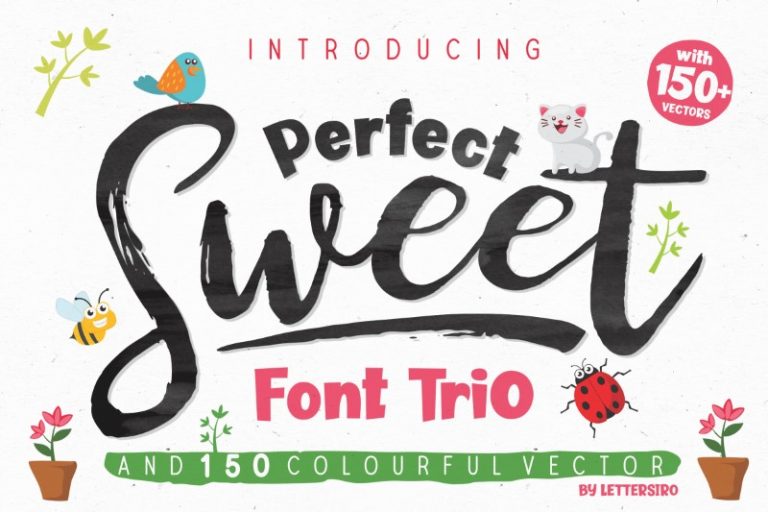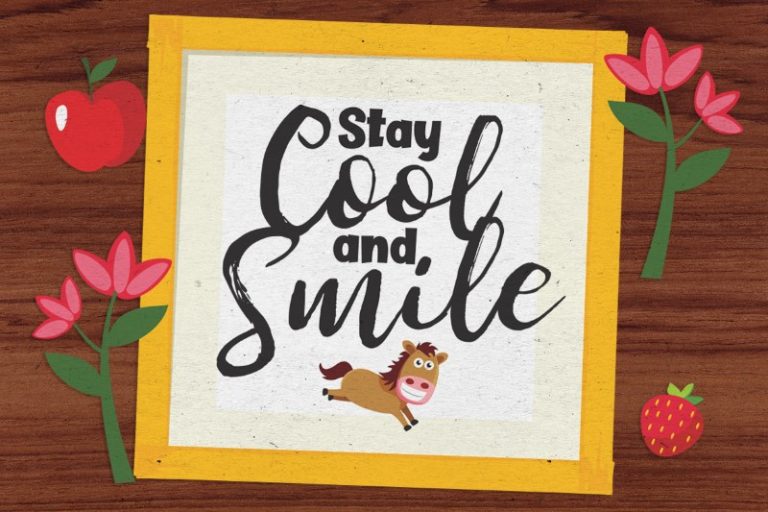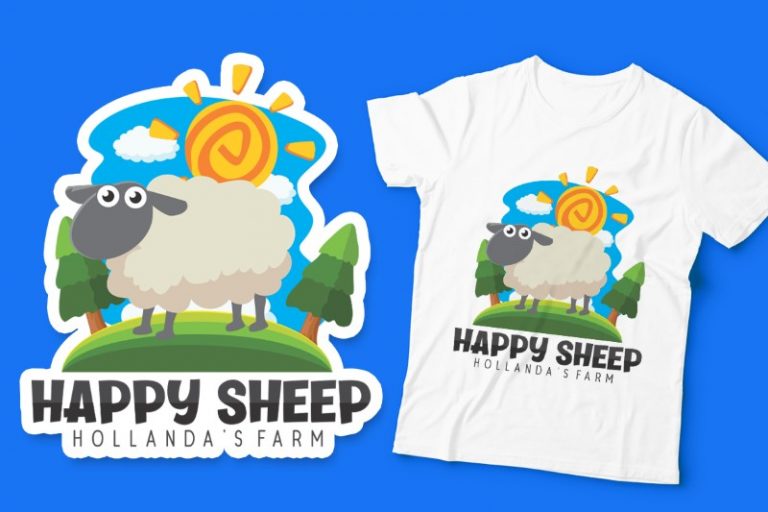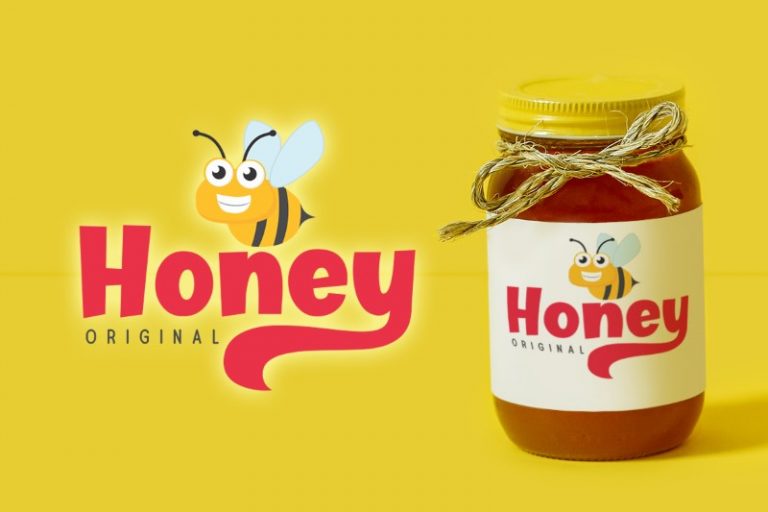
Perfect Sweet
Perfect Sweet Font Trio + 150 Colourful Vectors
This is our newest product called Perfect Sweet . This is a trio font (Script, Bold, Sans) that can be paired each other perfectly. We also give you more than 150 bonus colourful vector, you can make thousand designs, thousand logos with your creativity. This font and this vector is great for logo, illustration, book cover, poster, clothing, kids adventure, and many many others. HIGHLIGHTS:
• Perfect Sweet Script (TTF) font with natural brush stroke, comes with stylistic alternate and ligatures
• Perfect Sweet Bold (TTF) font with Clean Stroke, comes with stylistic alternate and ligatures
• Perfect Sweet Sans (TTF) font with rounded edge, this font is All Caps
• Multilingual support - spread your message globally AÀÁÂÃÄÅCÇDÐEÈÉÊËIÌÍÎÏNÑOØÒÓÔÕÖUÙÜÚÛWYÝŸÆßÞþ